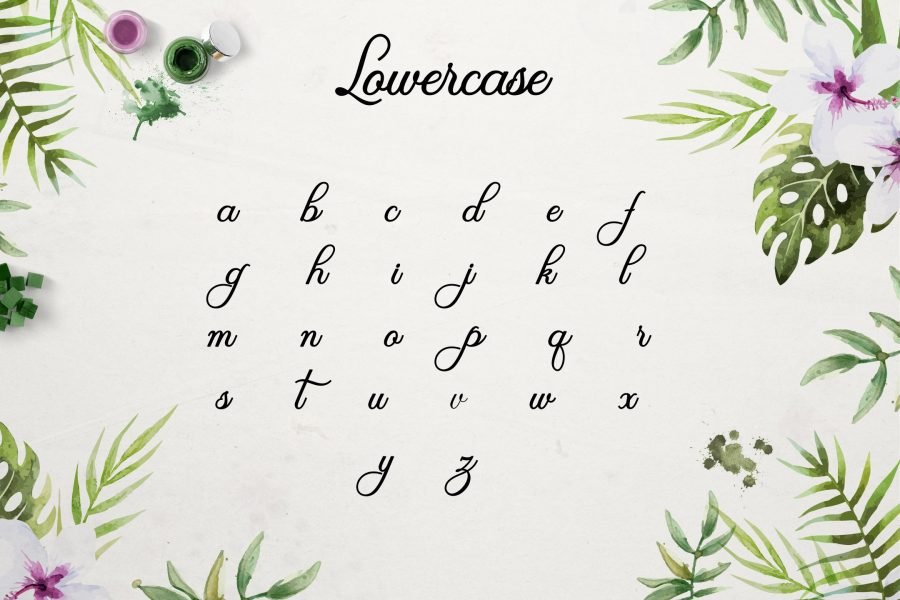
Olivia Script – Free Script Font
Description
Olivia Script Font is a beautifully designed script font, perfect for digital and print artwork, with a large selection of glyphs to choose from, best thing about it, it is 100% free! 🙂
Script fonts, also referred to as typefaces designed for screenwriting, can be a great way to add a unique touch to your writing. They can help to set a particular tone or mood, and can be a great way to show your creativity.
There are a number of great script fonts available online, such as this example Olivia Script. It’s worth taking the time to find the right one for your project. Some of the most popular script fonts include Gill Sans, Caslon, and Baskerville.
Script or Handwriting fonts can be a great way to add a unique touch to your writing.
They can help to set a particular tone or mood, and can